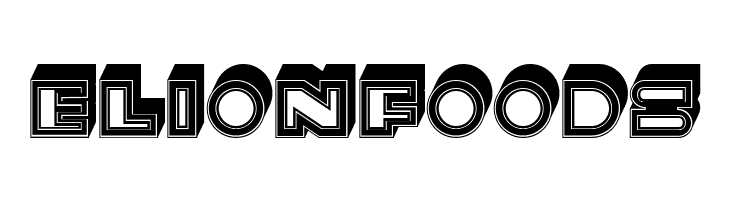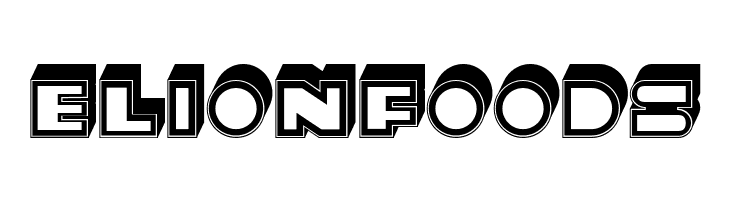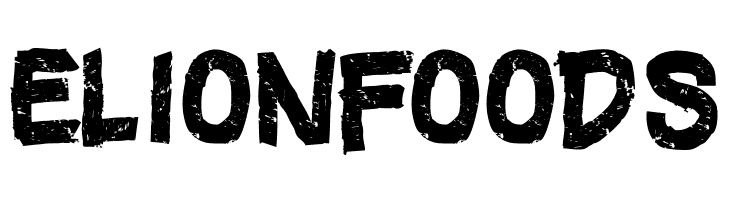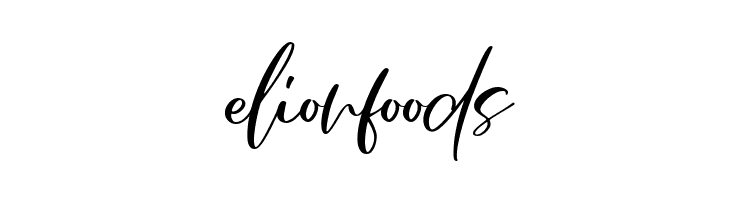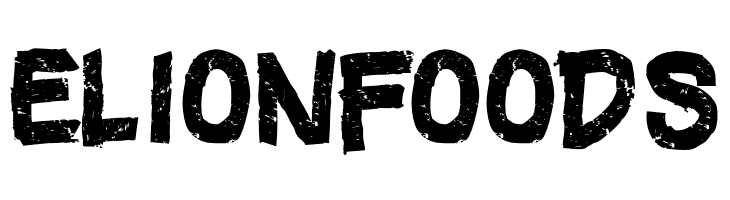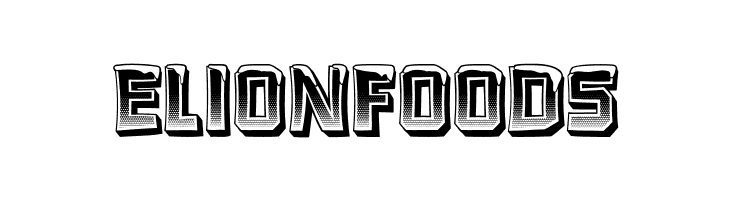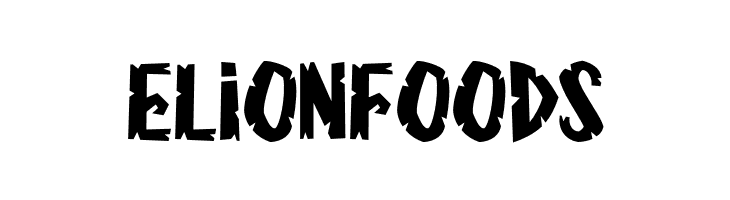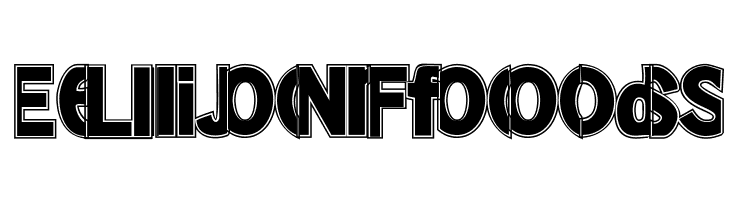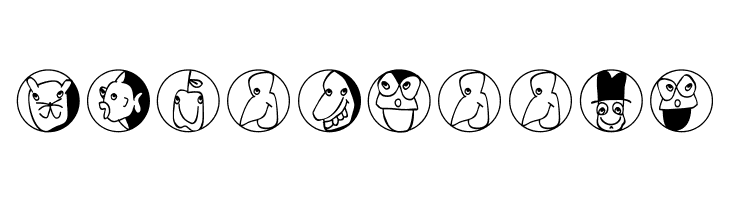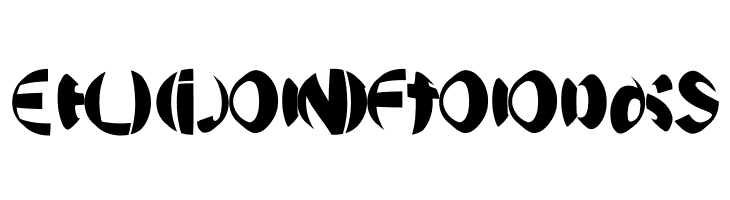
• FREEZER
A bold, jagged font with an icy, distressed appearance.
• Freezer Filled Regular
A bold, geometric font with a 3D effect and sharp angles, perfect for modern designs.
• Freezer Hollow Regular
A bold, geometric font with a hollow, three-dimensional design.
• Freezer Regular
A bold, geometric font with a three-dimensional effect and sharp angles.
• Freezing Regular
A bold, three-dimensional font with a vintage comic book style.
• FREEZONE
A bold, distressed font with a textured, hand-crafted appearance.
• FREEZONE
A bold, distressed font with a rugged, grunge texture.
• Frenchoy FREE
A sophisticated, elegant handwritten font with fluid, cursive letterforms and dynamic contrast.
• FrenzyWut
A playful, hand-drawn font with irregular strokes and a lively appearance.
• Frequency Mod Regular
A modern, dot-based font with a digital and futuristic style.
• Freshman
• Fresnel
A bold, dynamic font with jagged edges and a sense of movement.
• FretQwik
A classic serif font with high contrast and elegant strokes.
• FretQwikC
A classic serif font with elegant strokes and a refined appearance.
• FreudsFreeWorld
A decorative font with whimsical, hand-drawn illustrations in each character.
• FriendlyFire
A bold, high-contrast font with a playful and artistic design.
• FriendlyFireBullets
A bold, abstract display font with high contrast and geometric patterns.
• FriendlyFireDust
A bold, modern font with a stencil-like, futuristic design.
• FriendlyFireMagic
A bold, decorative font with a playful, three-dimensional style.
• FriendlyFirePower
A bold, dynamic font with a graffiti-inspired, energetic style.
• Friends & Neighbors JL
Cartoonish, hand-drawn faces replace standard alphanumeric characters.
• FRIET